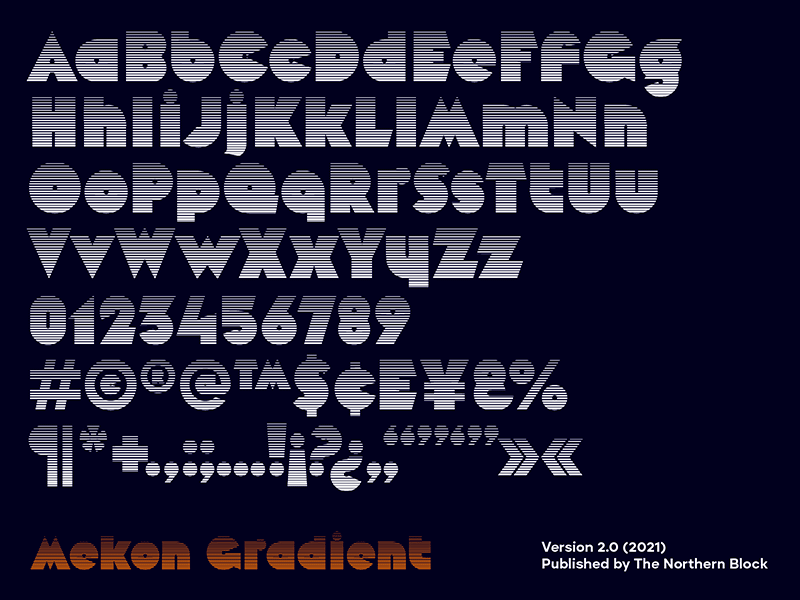
Font name: | Mekon Gradient |
Author: | The Northern Block |
Note by The Northern Block | |
Mekon is a modern heavyweight typeface digitised and expanded from Peter Steiners Black Body (1973). Retro-style Pacman shapes are combined with small keyhole counters to create a bold and witty font ideal for apparel, books, t-shirts and posters. Mekon is now available as version 2.0 (2021); the remastered version meets higher technical standards that modern-day users demand. |